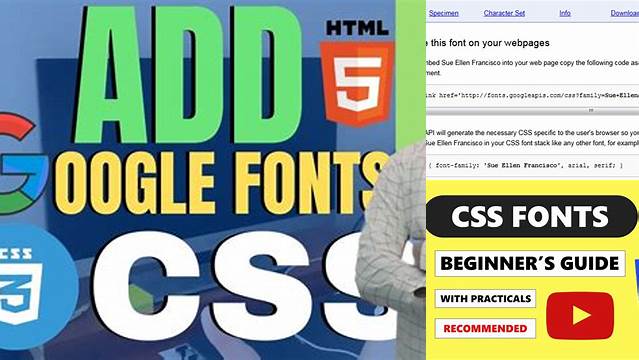
Embed Google Fonts In CSS: A Comprehensive Guide
Google Fonts offers a vast library of free, high-quality fonts that can significantly enhance the look and feel of your website. Embedding these fonts into your CSS is a straightforward process, but understanding the various methods and best practices is crucial for optimal performance and user experience. In this comprehensive guide, we'll explore everything you need to know about embedding Google Fonts in your CSS, from the basics to advanced techniques.
Understanding Google Fonts
Before we dive into the how-to, let's understand what Google Fonts is and why it's so popular. Google Fonts is a directory of over 1,400 free licensed font families, making it a go-to resource for web developers and designers. These fonts are open-source, meaning you can use them in any project, commercial or personal, without worrying about licensing fees. Google Fonts are designed to be used on the web, meaning they are optimized for screen rendering and come in various formats suitable for different browsers.
Why Use Google Fonts?
There are numerous reasons why Google Fonts is a popular choice for web projects:
- Free and Open Source: As mentioned, all fonts are free to use, eliminating the cost barrier for many developers and designers.
- Extensive Library: With over 1,400 font families, you're sure to find something that fits your project's aesthetic.
- Easy to Use: Embedding Google Fonts is a simple process, as you'll see in the following sections.
- Performance Optimized: Google Fonts are served from Google's global CDN (Content Delivery Network), ensuring fast loading times for your website.
- Cross-Browser Compatibility: Google Fonts are designed to work across all major web browsers.
Choosing the Right Font:
Selecting the right font is a critical part of web design. Your font choice can significantly impact the readability and overall aesthetic of your website. Here are some tips for choosing the right font:
- Consider Readability: Prioritize fonts that are easy to read, especially for body text. Sans-serif fonts like Arial, Helvetica, and Open Sans are often preferred for body text due to their clean and modern look. Serif fonts like Times New Roman, Georgia, and Merriweather can also be used for body text, but they tend to be more suitable for print-heavy websites or blogs.
- Match the Tone: Choose fonts that match the tone and style of your website. A playful website might use a more whimsical font, while a professional website might opt for a more classic and conservative font.
- Use Font Pairings: Combining different fonts can create visual interest, but it's essential to do it right. Pair a display font (used for headings) with a readable body font. Tools like FontPair can help you find harmonious font pairings.
- Consider Font Weights and Styles: Google Fonts often come in various weights (e.g., light, regular, bold) and styles (e.g., italic, condensed). Using different weights and styles can add visual hierarchy to your content.
- Test Your Fonts: Always test your chosen fonts on different devices and browsers to ensure they render correctly.
Methods for Embedding Google Fonts in CSS
There are primarily two methods for embedding Google Fonts in your CSS: using the <link> tag and using the @import rule. Let's explore each method in detail.
1. Using the <link> Tag
The most common and recommended method for embedding Google Fonts is using the <link> tag in the <head> section of your HTML document. This method is generally preferred because it allows the browser to discover the font files early in the rendering process, leading to faster page load times.
Steps:
- Choose Your Fonts: Go to the Google Fonts website (https://fonts.google.com/) and browse the library. Select the font families you want to use.
- Select Styles: For each font family, choose the styles and weights you need (e.g., Regular 400, Bold 700, Italic 400). Google Fonts will provide you with the appropriate code snippets.
- Copy the
<link>Tag: Google Fonts will generate a<link>tag that you need to copy. - Paste into HTML: Paste the
<link>tag into the<head>section of your HTML document. - Use in CSS: Use the font family name in your CSS rules.
Example:
Let's say you want to use the "Roboto" font family with Regular (400) and Bold (700) weights. Here's how you would do it:
Go to Google Fonts and select the Roboto font.
Choose the Regular 400 and Bold 700 styles.
Google Fonts will provide the following
<link>tag:<link rel="preconnect" href="https://fonts.googleapis.com"> <link rel="preconnect" href="https://fonts.gstatic.com" crossorigin> <link href="https://fonts.googleapis.com/css2?family=Roboto:wght@400;700&display=swap" rel="stylesheet"> -
Paste this
<link>tag into the<head>section of your HTML:<!DOCTYPE html> <html lang="en"> <head> <meta charset="UTF-8"> <meta name="viewport" content="width=device-width, initial-scale=1.0"> <title>My Website</title> <link rel="preconnect" href="https://fonts.googleapis.com"> <link rel="preconnect" href="https://fonts.gstatic.com" crossorigin> <link href="https://fonts.googleapis.com/css2?family=Roboto:wght@400;700&display=swap" rel="stylesheet"> <style> body { font-family: 'Roboto', sans-serif; } h1 { font-family: 'Roboto', sans-serif; font-weight: 700; } </style> </head> <body> <h1>Welcome to My Website</h1> <p>This is some text using the Roboto font.</p> </body> </html>In this example, we've linked the Roboto font and used it for the
- Preload Fonts: Preloading can improve perceived performance.
Embedding Google Fonts in your CSS is a simple yet powerful way to enhance your website's design and readability. By understanding the various methods, best practices, and optimization techniques, you can ensure that your website looks great and performs well. Remember to use the <link> tag for optimal performance, always include font-display: swap, and select only the font styles and weights you need. With these tips in mind, you'll be well on your way to creating visually appealing and performant websites using Google Fonts. So, guys, go ahead and experiment with different fonts and create stunning designs!